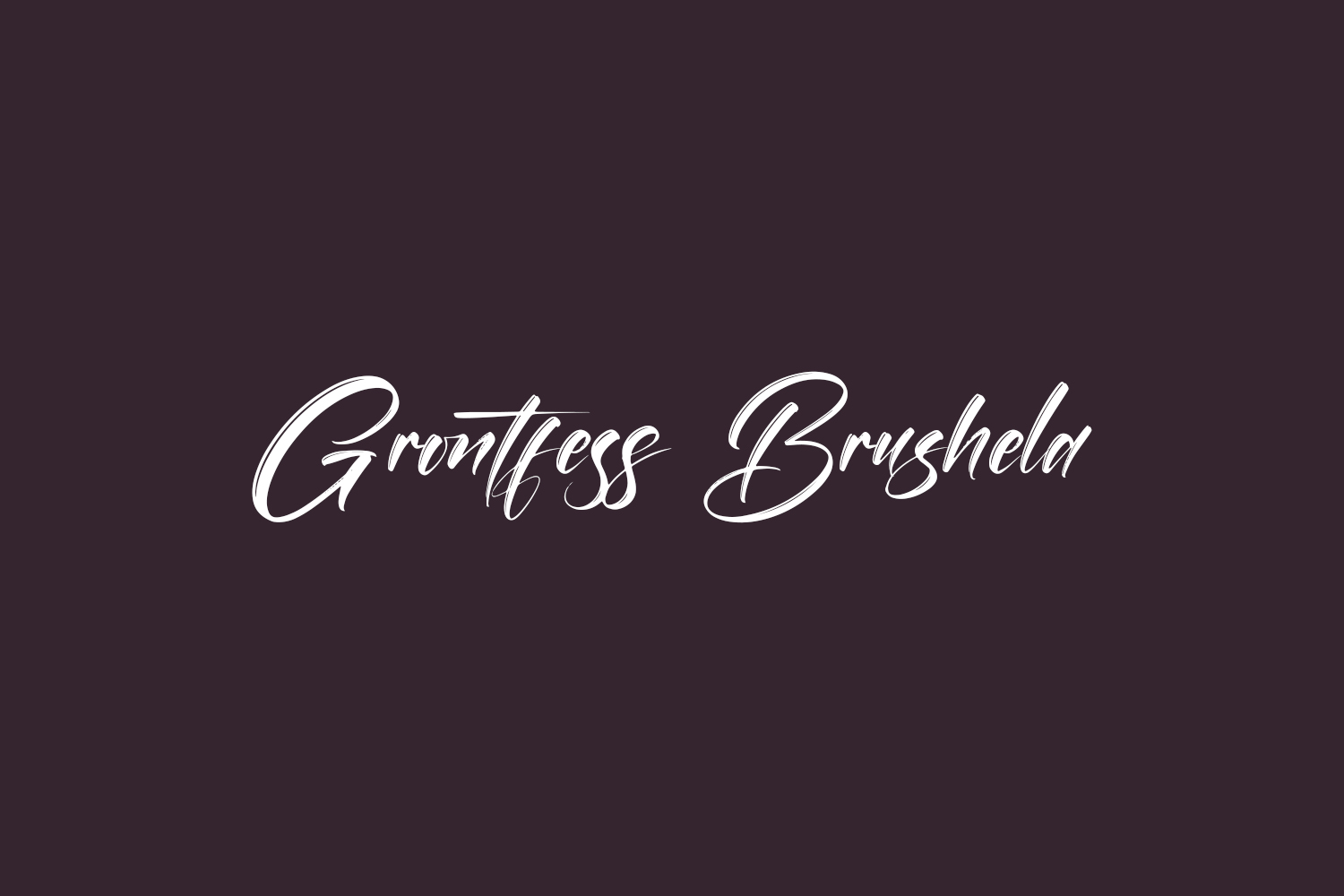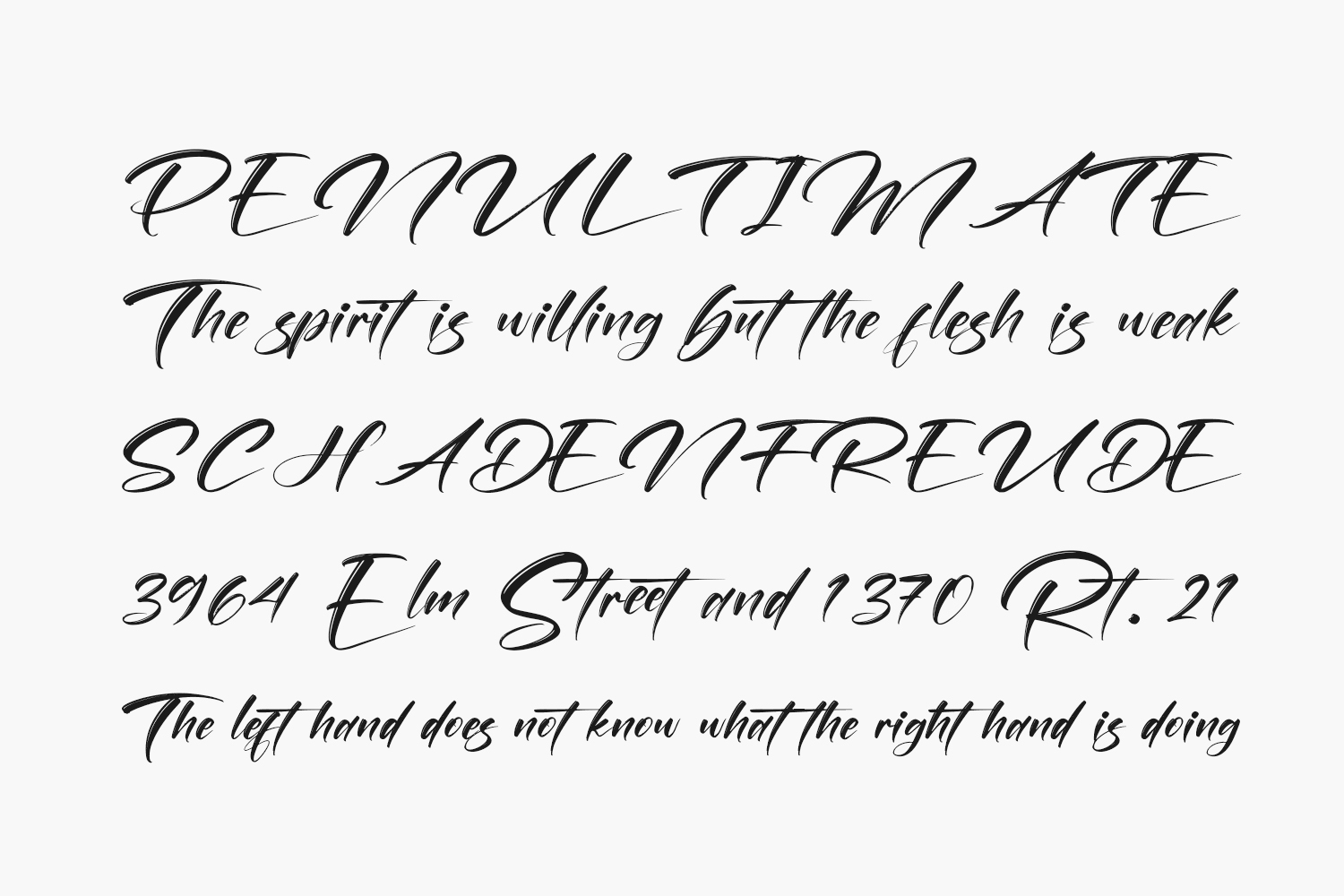
Grontfess Brushela Free Font is an exquisite handwritten font, carefully crafted to convey messages with a blend of confidence, authenticity, and charm. This versatile font enhances various creative projects, including greeting cards, branding, labels, and beyond. Free Font is free for personal use only. Please purchase the full version for commercial use.